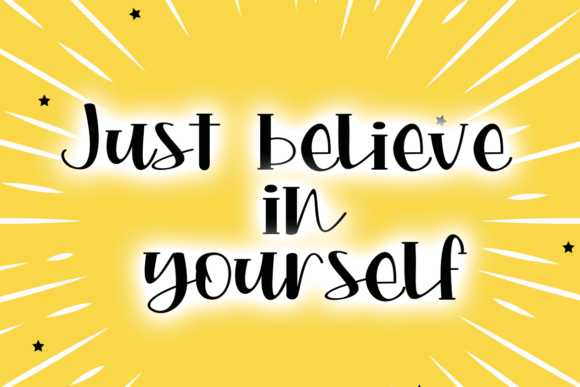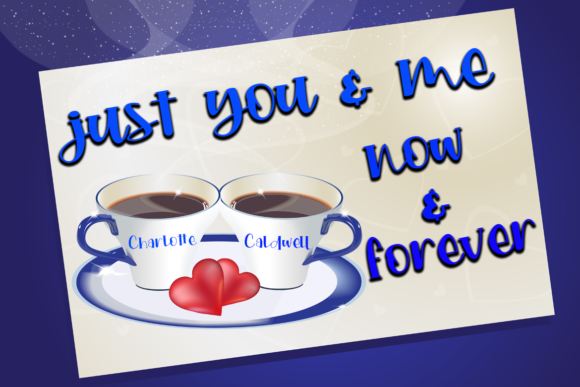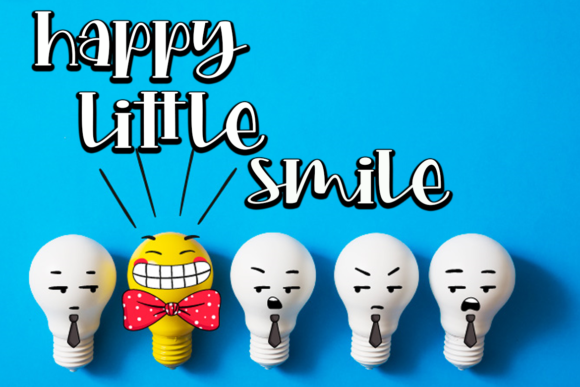
Introduction to Delight Day Font
Delight Day embodies fun, quirkiness and authenticity.
📌 Product Name Delight Day Font
👤 Author Supersemar Letter
This enchanting handwritten font will turn any creative idea into a true standout .
Key Features of Delight Day Font
Why Choose Delight Day Font?
Delight Day Font offers exceptional quality and versatility, making it a valuable addition to your design toolkit. Whether you’re creating for personal projects or commercial use, Delight Day Font delivers professional results.